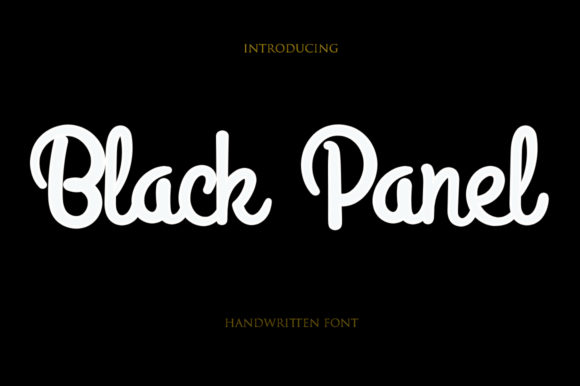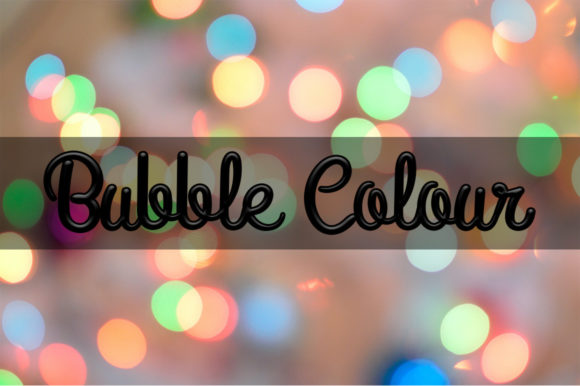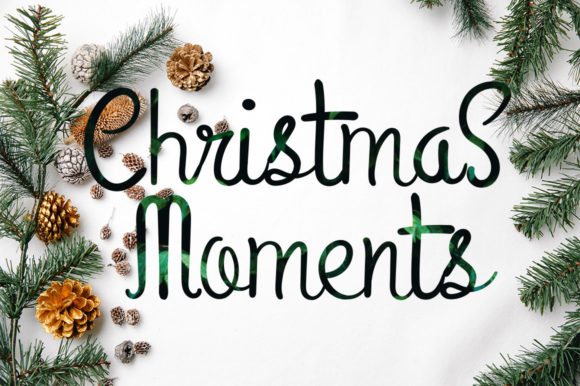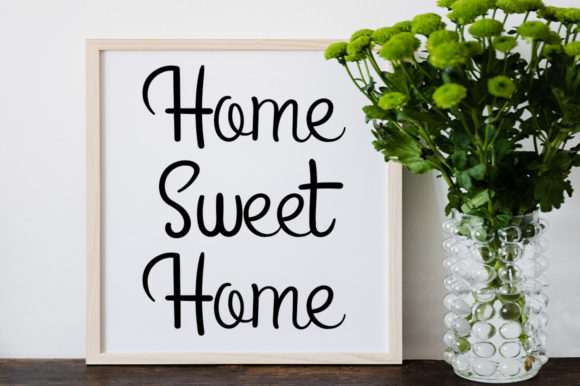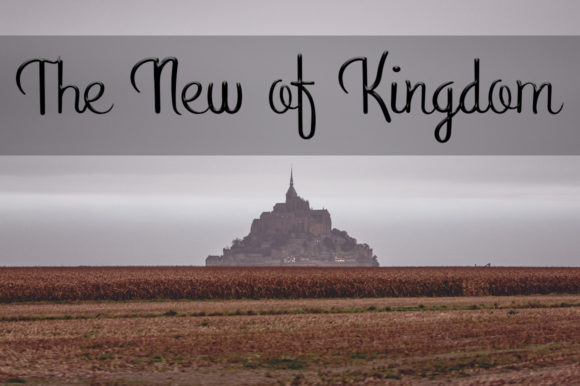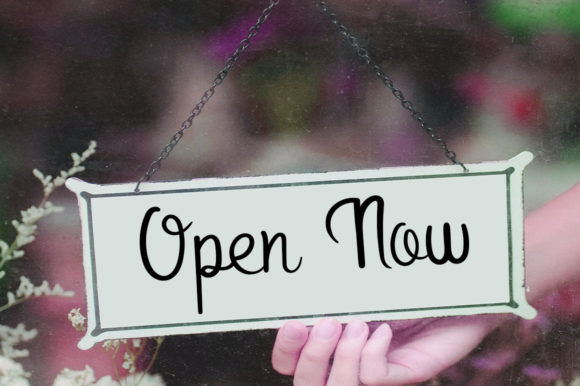
Black Panel Font
About Black Panel Font
Black Pastel is a cute, smooth, and cool handwritten font that you can use for any chalkboard quotes or teaching materials! Its authentic look will add a personal and realistic feel to your designs. This font was also well-designed for packaging products, invitation cards, flyers, and event posters that require high-quality writing. Its classy, ​​elegant, and modern appearance will add that extra something to your logos, branding designs, invitations, stationery, wedding designs, social media posts, and many more.